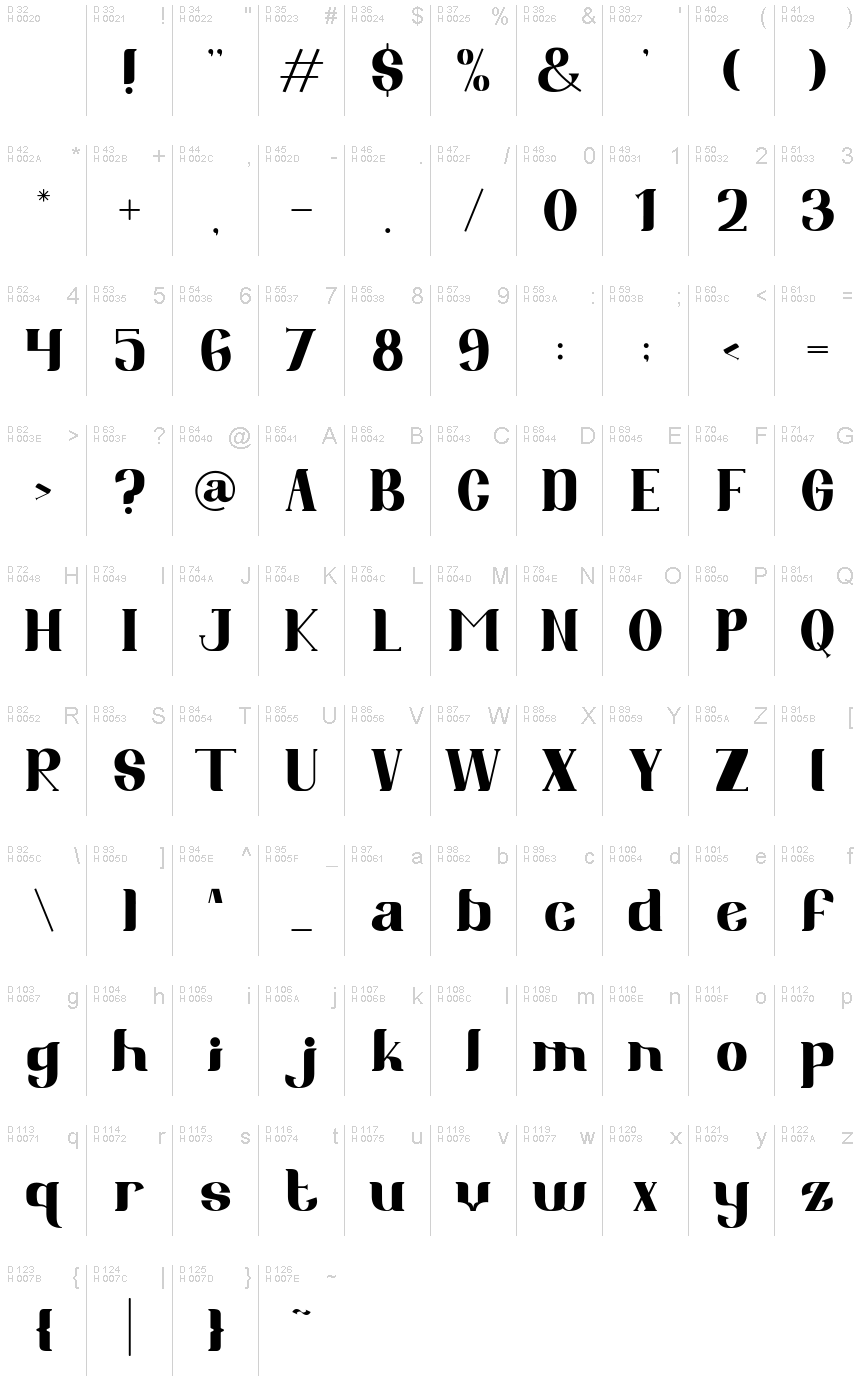
Sixty Niners
Sixty Niners, crafted by PutraCetol Studio, is a display font that exudes a distinct retro charm. Its bold and striking characters immediately draw the eye, making it perfect for creating attention-grabbing headlines and titles. The unique curves and playful serifs give Sixty Niners an inviting personality that stands out in any design context.
Ideal for vintage-themed projects, Sixty Niners can transform posters, logos, and branding materials into timeless pieces of art. Its robust presence also makes it suitable for editorial designs where a touch of nostalgia is desired. Embrace the spirit of bygone eras with Sixty Niners, where every letter tells a story.